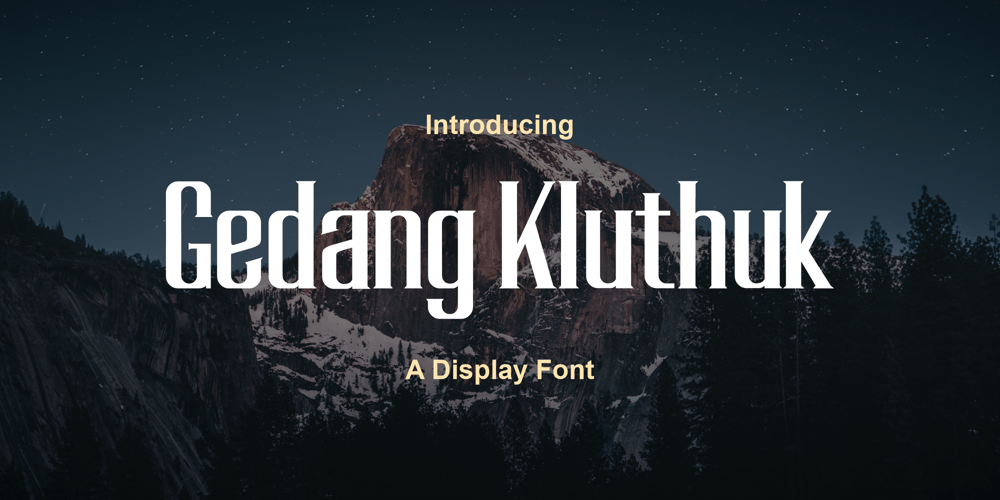
Gedang Kluthuk Font Family was designed by Yoga Dwi Cahyono and published by Pitvlas Type. Gedang Kluthuk contains 1 styles and family package options. This typeface features a simple, clean, and bold design, making it highly versatile for various commercial design applications. With its sharp lines and solid letterforms, the typeface exudes a modern and professional look. Its simplicity allows text to stand out clearly and powerfully, making it an ideal choice for branding, advertising, and any visual design projects that require clarity and strong visual impact.